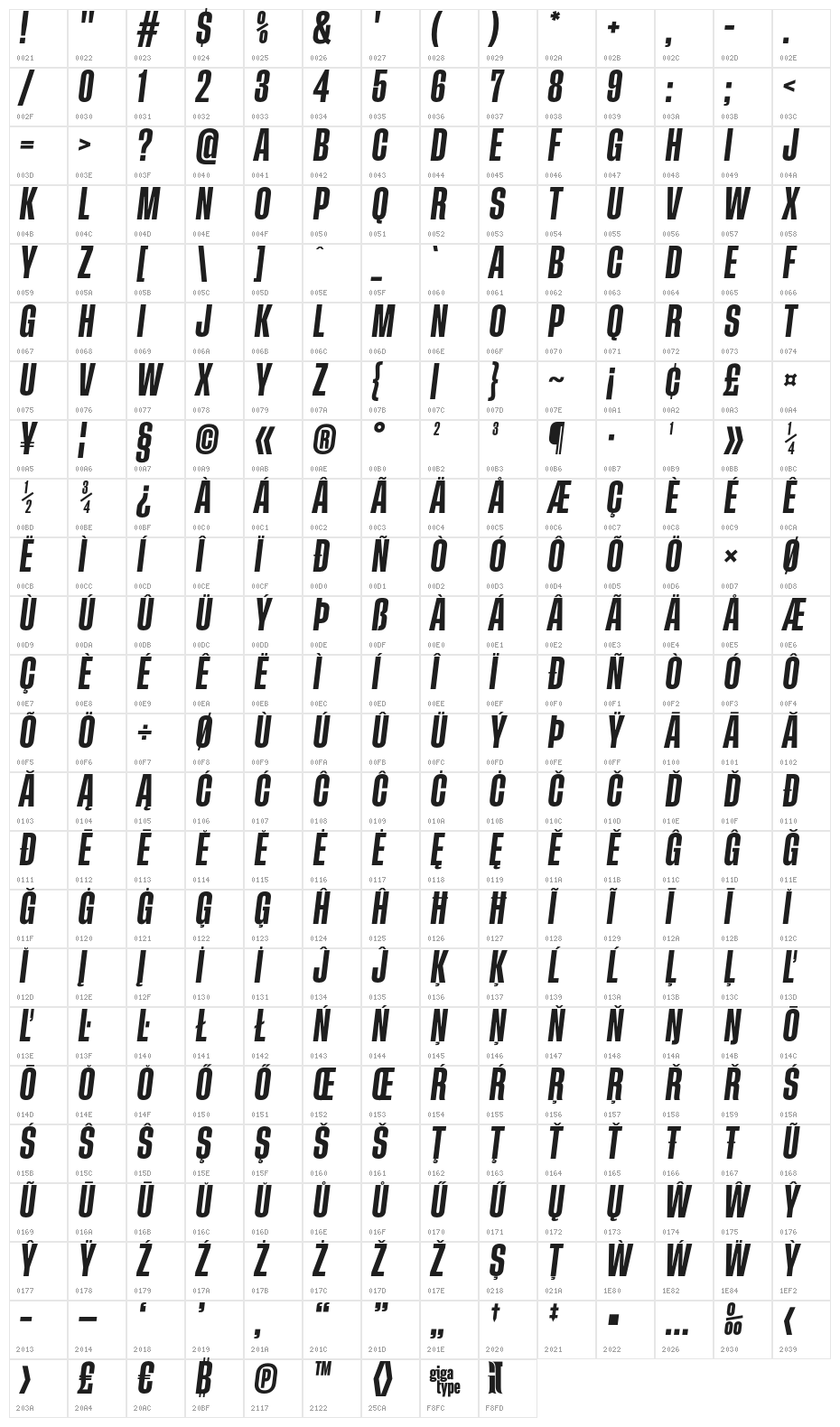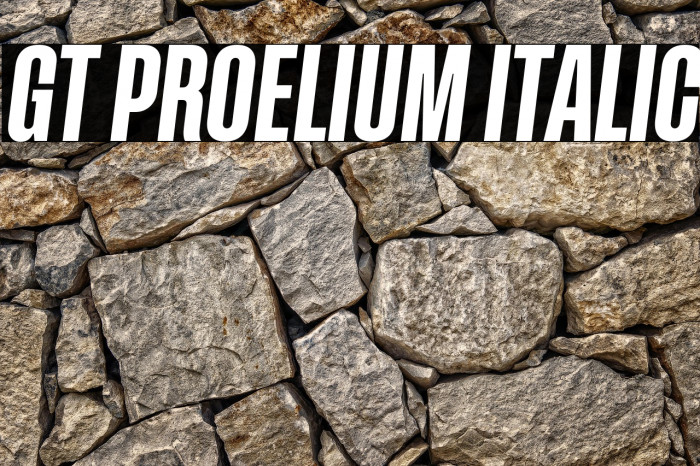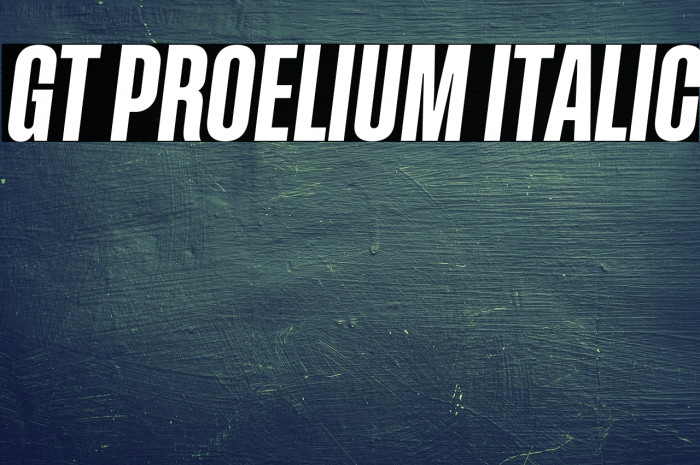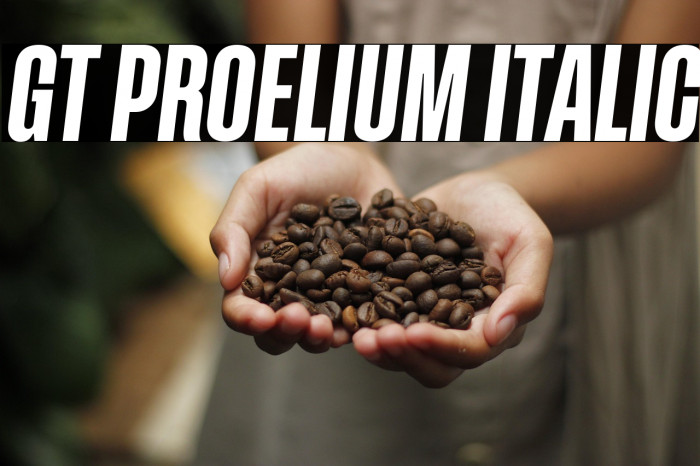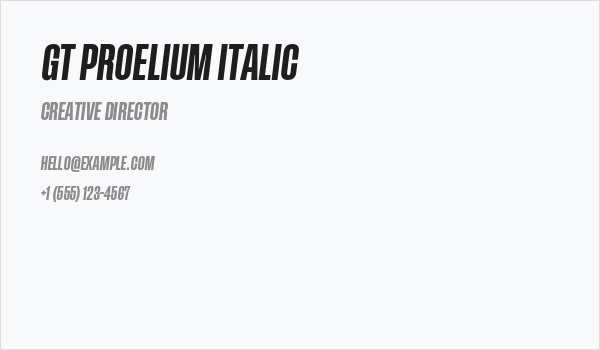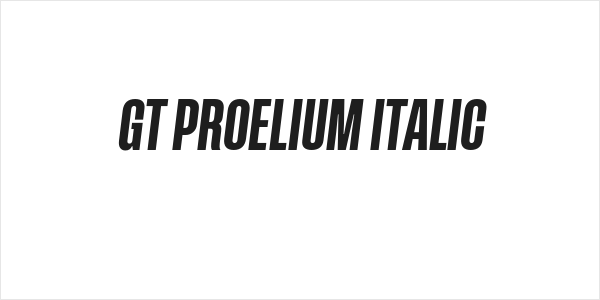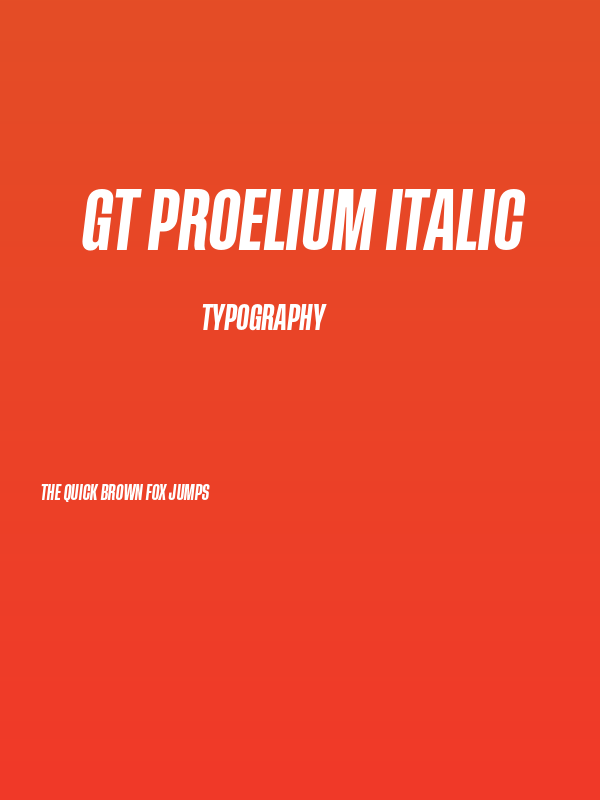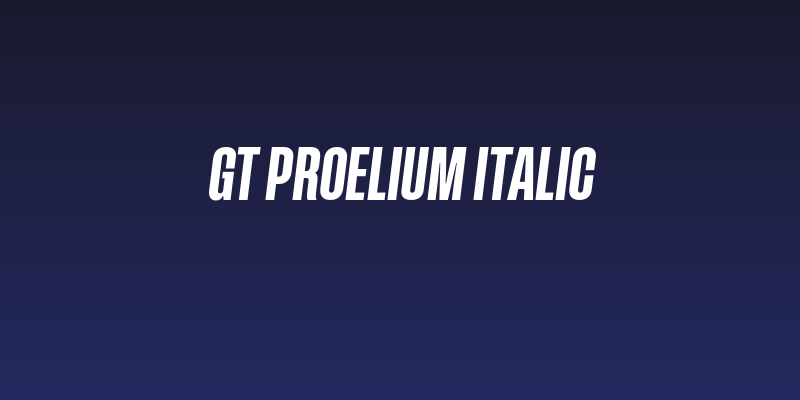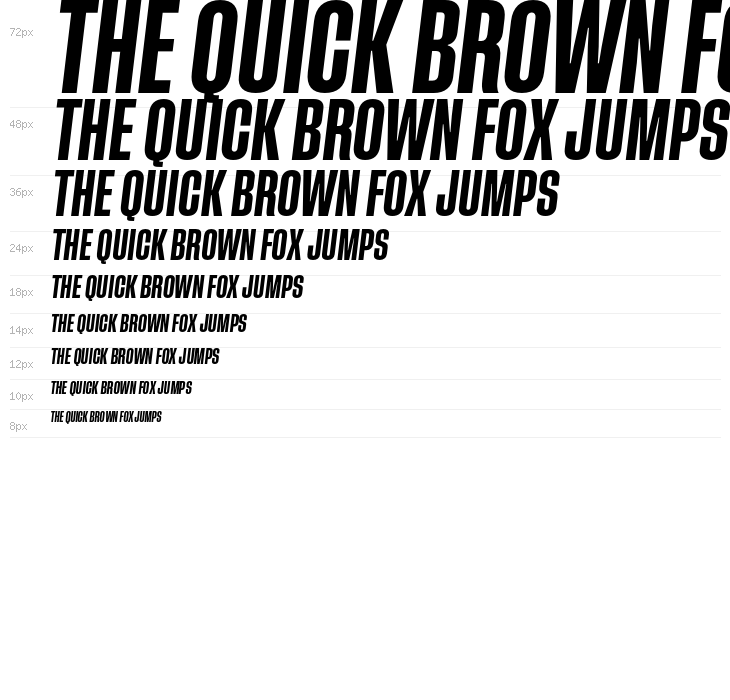
GT Proelium Italic Font
GT Proelium Italic Description
A bold, italic sans-serif font with a modern and dynamic appearance, featuring tight character spacing and high contrast.
| Proposed Projects | Sports branding, dynamic posters, modern advertising. |